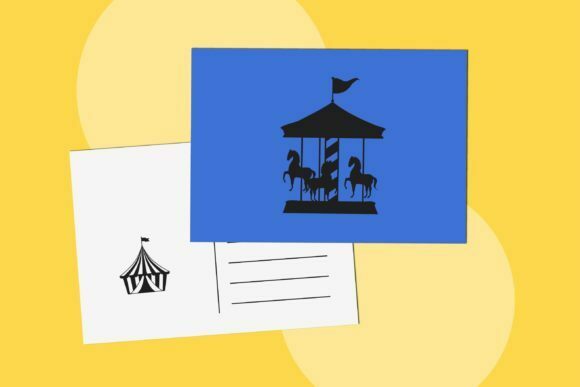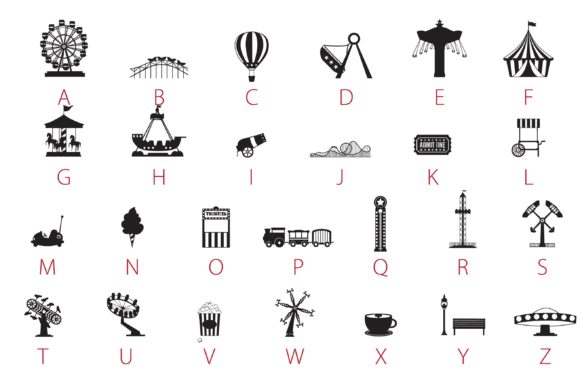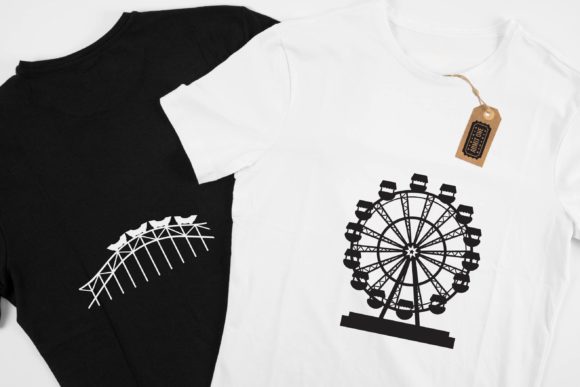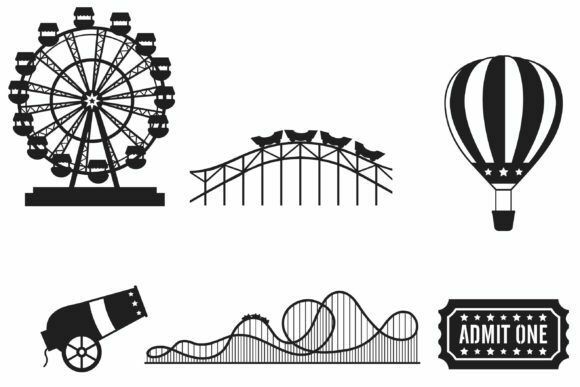
Amusement Park sounds like a delightful and playful dingbats font that captures the essence of a carnival. With its collection of glyphs representing hot air balloons, Ferris wheels, roller coasters, and more, this font offers a wide range of possibilities to incorporate the whimsical spirit of an amusement park into your designs. Here are some creative ideas on how you can use the Amusement Park dingbats font:
1. Event Posters: Create eye-catching posters for amusement park events or carnival-themed parties using the glyphs from Amusement Park. Combine different elements like the Ferris wheel, roller coasters, and hot air balloons to design a visually appealing and engaging poster that captures the excitement and fun of the event.
2. Social Media Graphics: Use the glyphs as decorative elements in your social media graphics. Whether you’re promoting an amusement park, announcing special events, or simply sharing fun and playful content, incorporating the Amusement Park dingbats can add a touch of joy and whimsy to your social media posts.
3. Children’s Book Illustrations: If you’re working on illustrations for a children’s book with an amusement park theme, the Amusement Park dingbats font can be a valuable resource. Use the glyphs to create charming illustrations of rides, balloons, and other elements to bring the story to life and engage young readers.
4. Website Design: Incorporate the Amusement Park glyphs into your website design to create a visually appealing and immersive experience. Use them as icons, buttons, or decorative elements that reflect the amusement park theme and enhance the user interface.
5. Scrapbooking and Crafting: The Amusement Park dingbats font can be a great addition to your scrapbooking and crafting projects. Use the glyphs to create custom embellishments, borders, or patterns for your layouts. They can also be used for card making, party decorations, or any other craft project that celebrates the joy and excitement of an amusement park.
Remember to have fun and experiment with different combinations and arrangements of the glyphs from Amusement Park to create unique and captivating designs. Let your creativity soar and capture the magical spirit of the carnival in your projects!